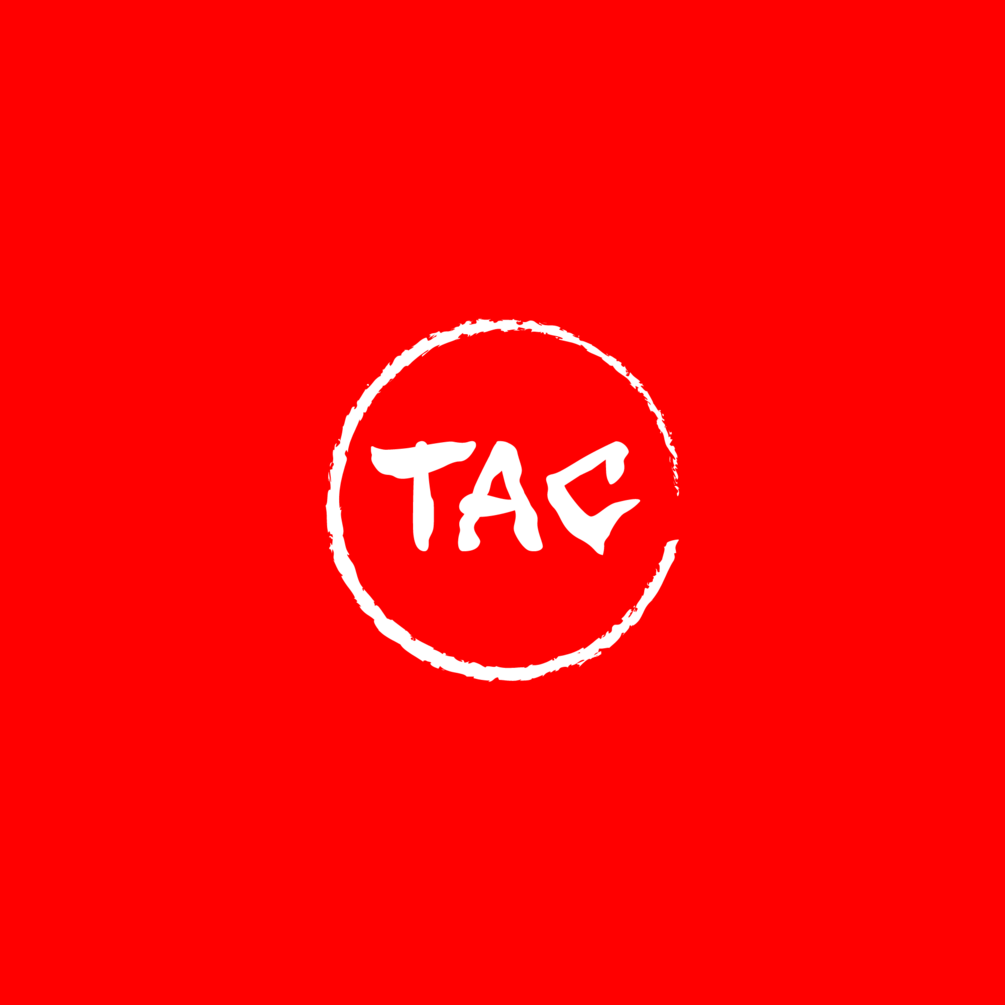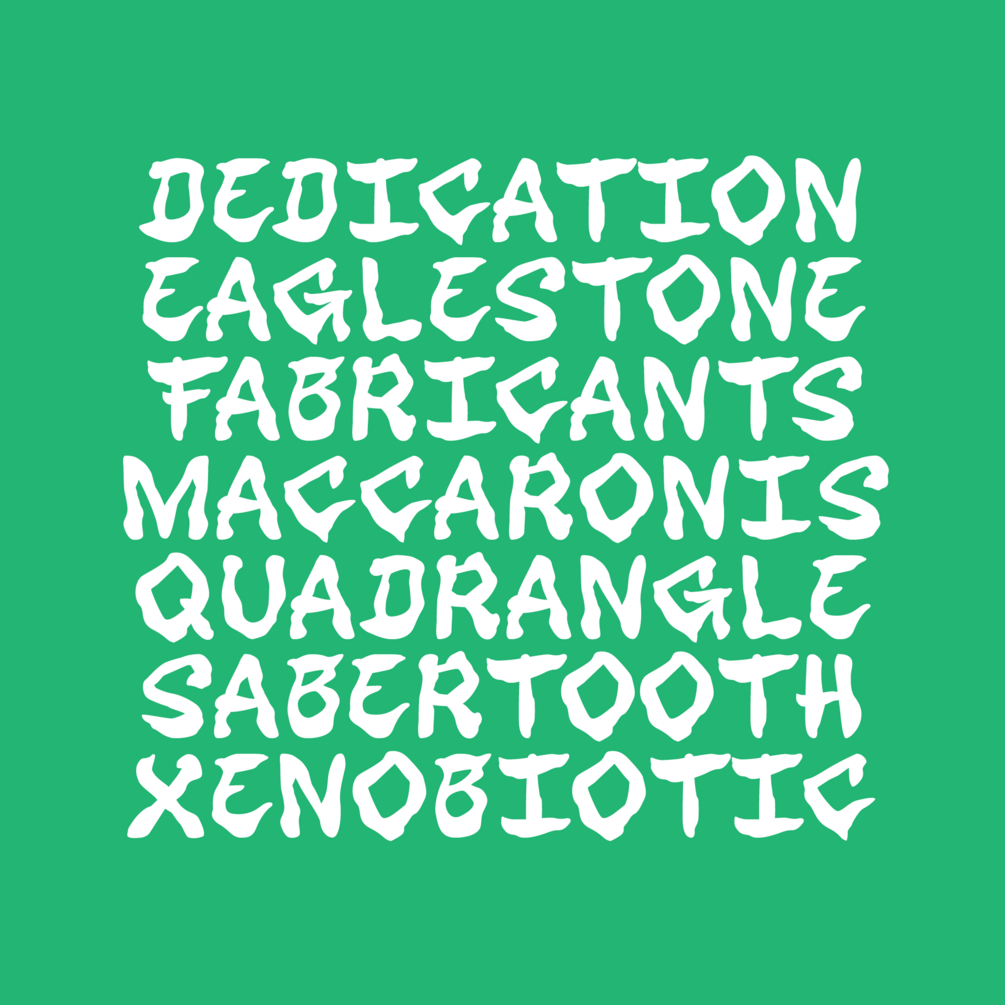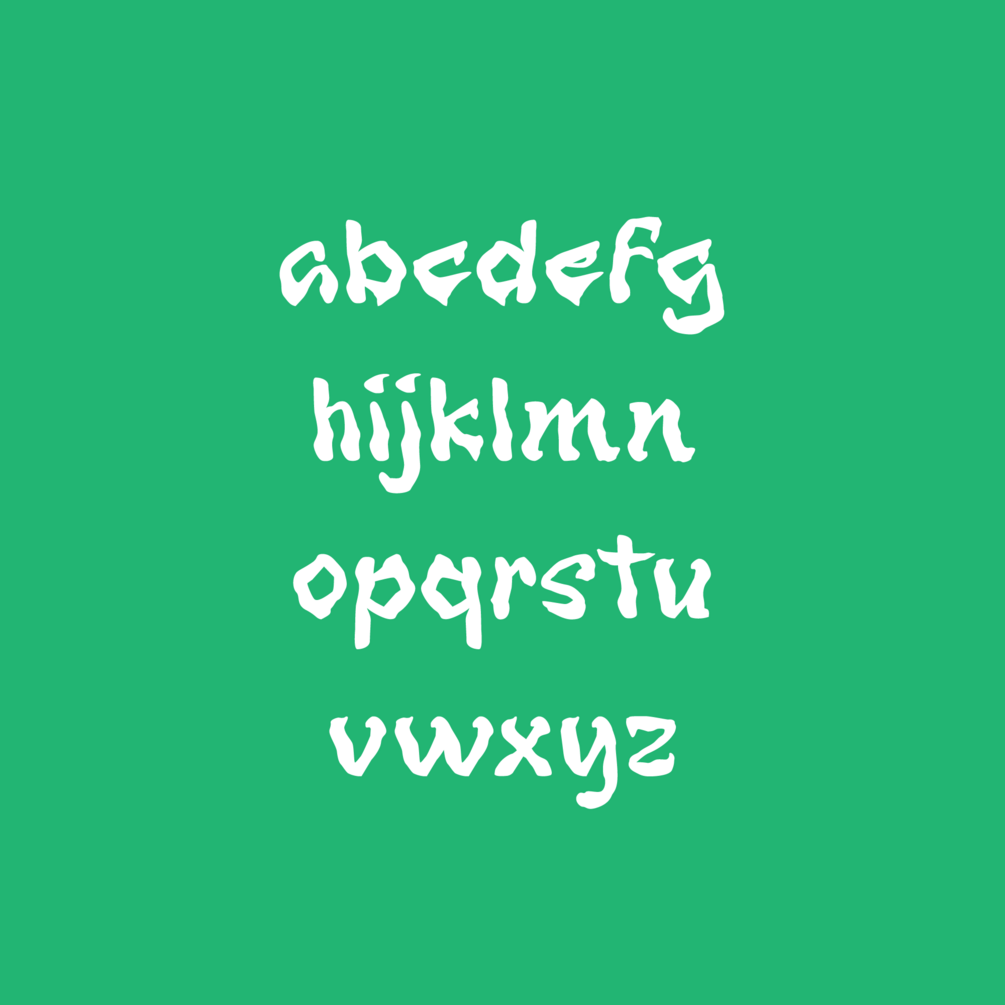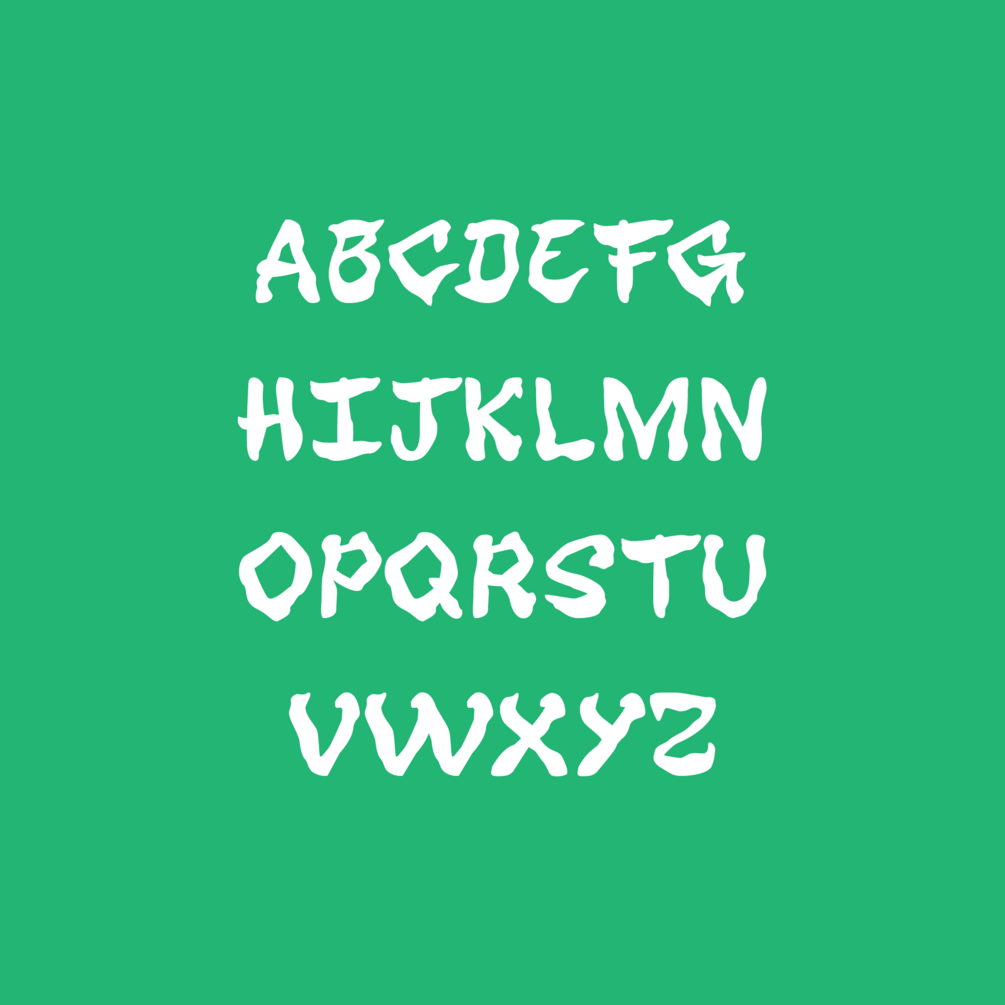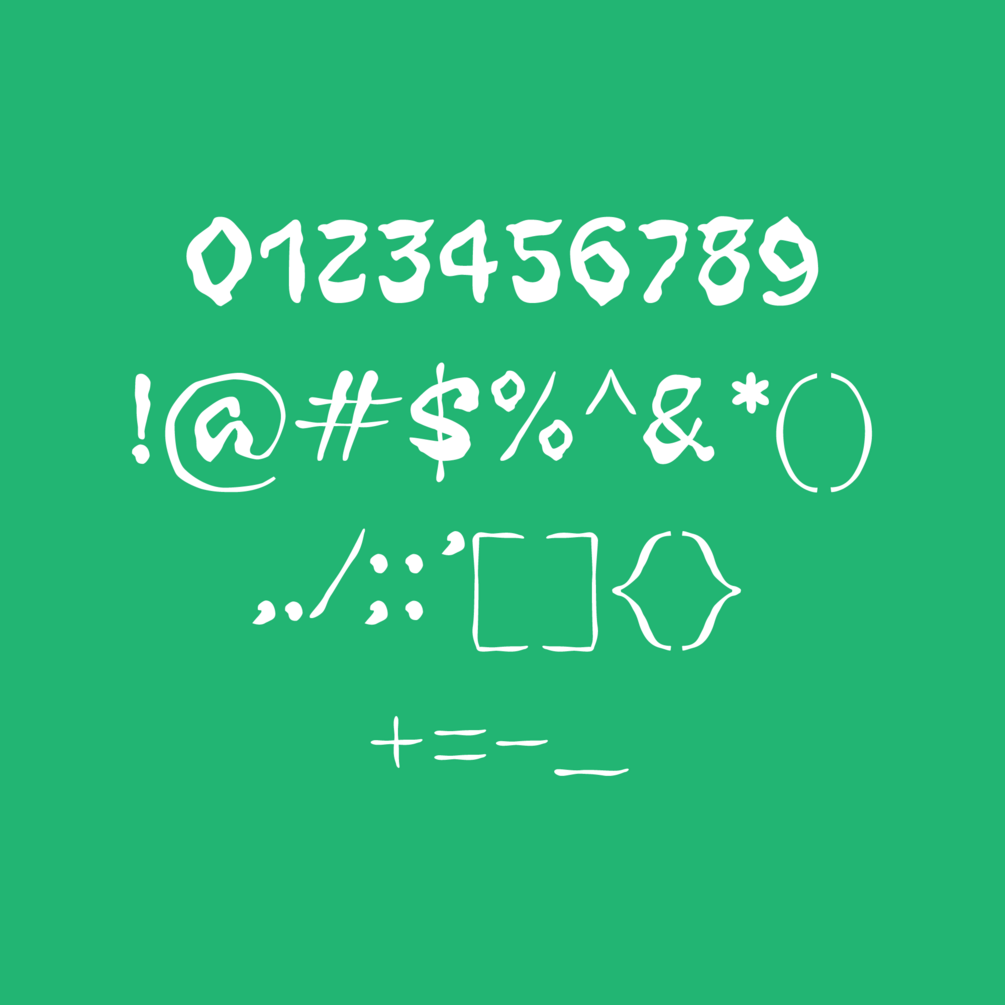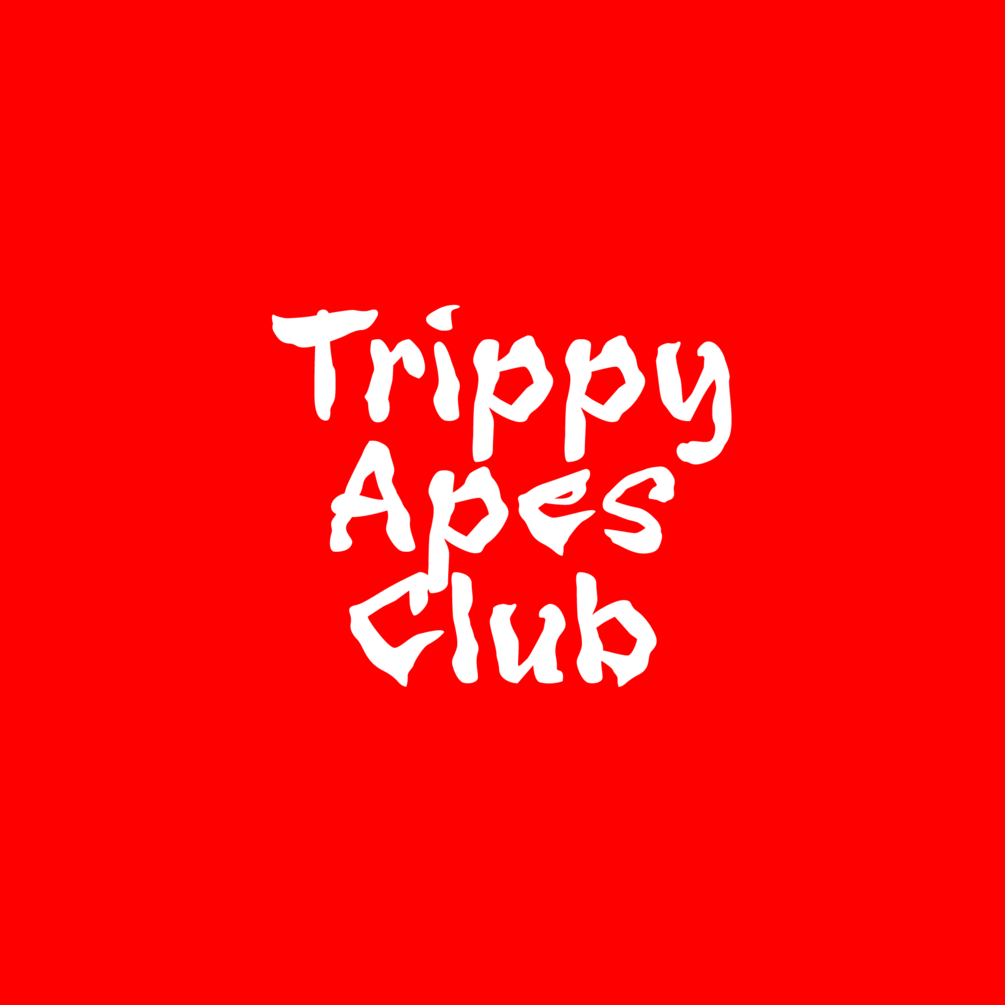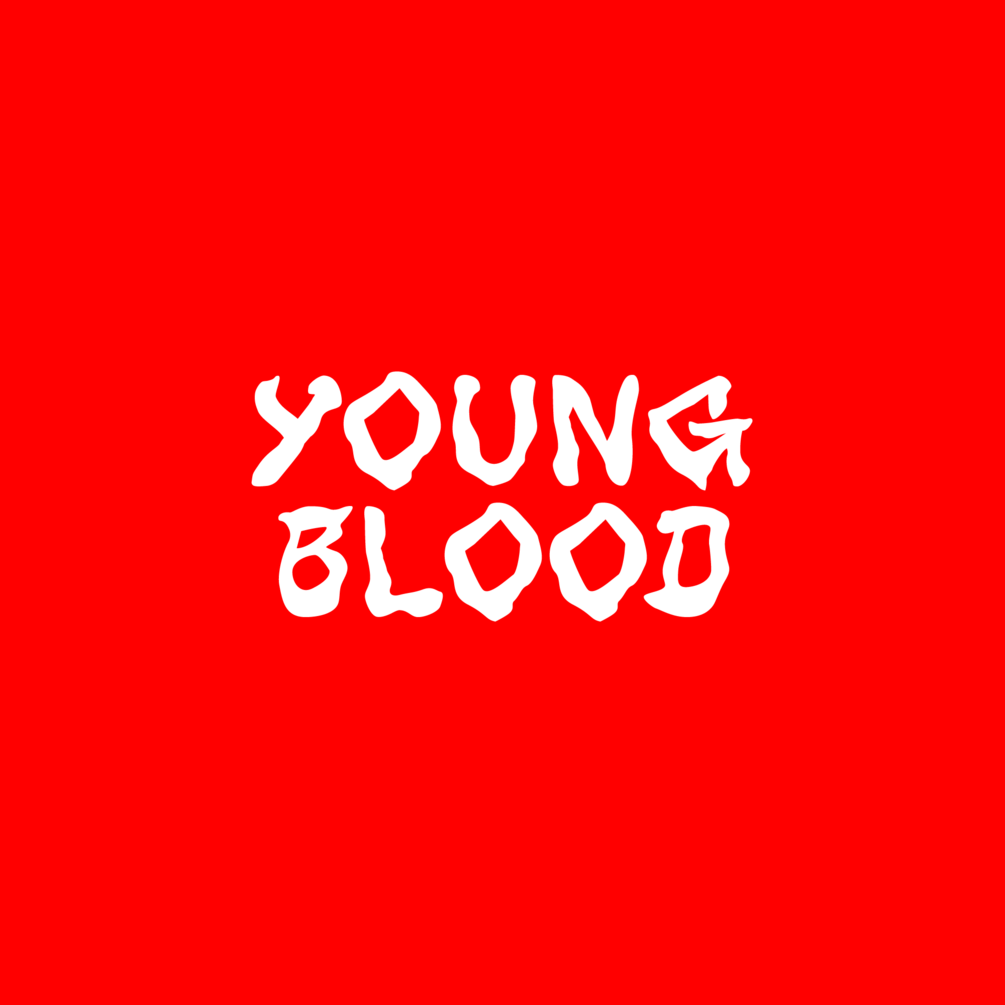
Lunasia Brush FontTypeezy0 ratingsThis font is handmade created with a brush pen. It is intended for display and branding purposes.$1515usdDesktop$199199usdWeb$299299usdApp$4949usdEpub415usdI want this!Size89.6 KB